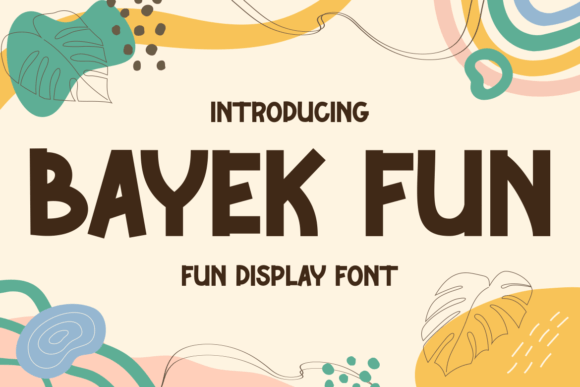
Introducing Bayek Fun Font, the whimsical and captivating display font that will ignite your creativity and leave an unforgettable mark on your designs. Designed by the talented vandesignstd, Bayek Fun Font embodies the playful spirit of childhood, effortlessly conveying friendliness and joy with every stroke.
Step into a world of imagination and wonder as Bayek Fun Font transforms your designs into captivating masterpieces. Whether you're crafting heartwarming greeting cards, designing eye-catching social media graphics, or creating presentations that resonate with your audience, this font has the versatility and charm to elevate your work to new heights.
Bayek Fun Font's carefully crafted characters exude a sense of playfulness and warmth, making it the perfect choice for projects that aim to engage and inspire. Its easy-to-read nature ensures that your message will be conveyed with clarity and impact, leaving a lasting impression on your readers.
With Bayek Fun Font, the possibilities are endless. Unleash your creativity and let your imagination soar as you explore the boundless potential of this extraordinary font. Its versatility knows no bounds, making it a must-have for designers, crafters, and anyone seeking to add a touch of whimsy and delight to their projects.
Embrace the joy of Bayek Fun Font today and unlock a world of design possibilities. Immerse yourself in its playful charm and create designs that ignite smiles and spark the imagination. Let Bayek Fun Font be your creative companion, guiding you towards captivating and unforgettable creations.